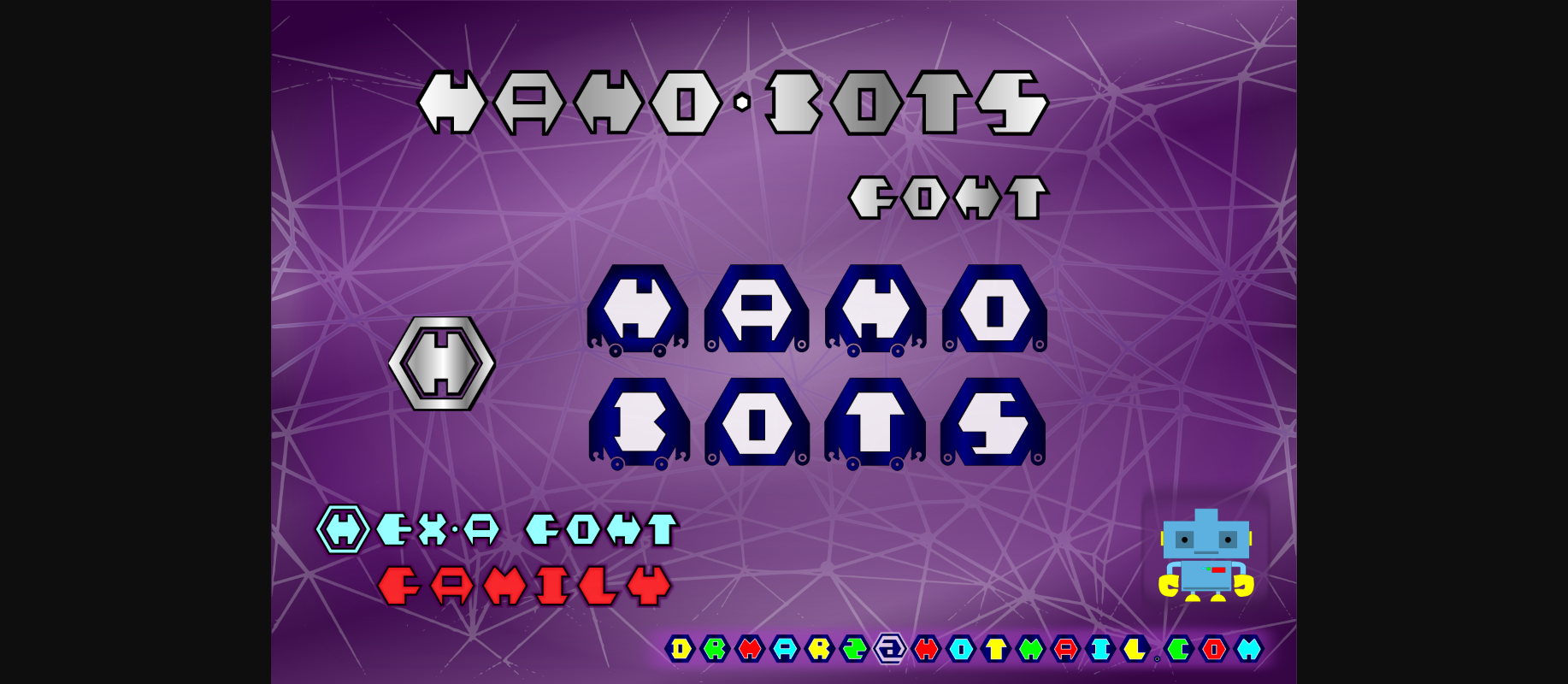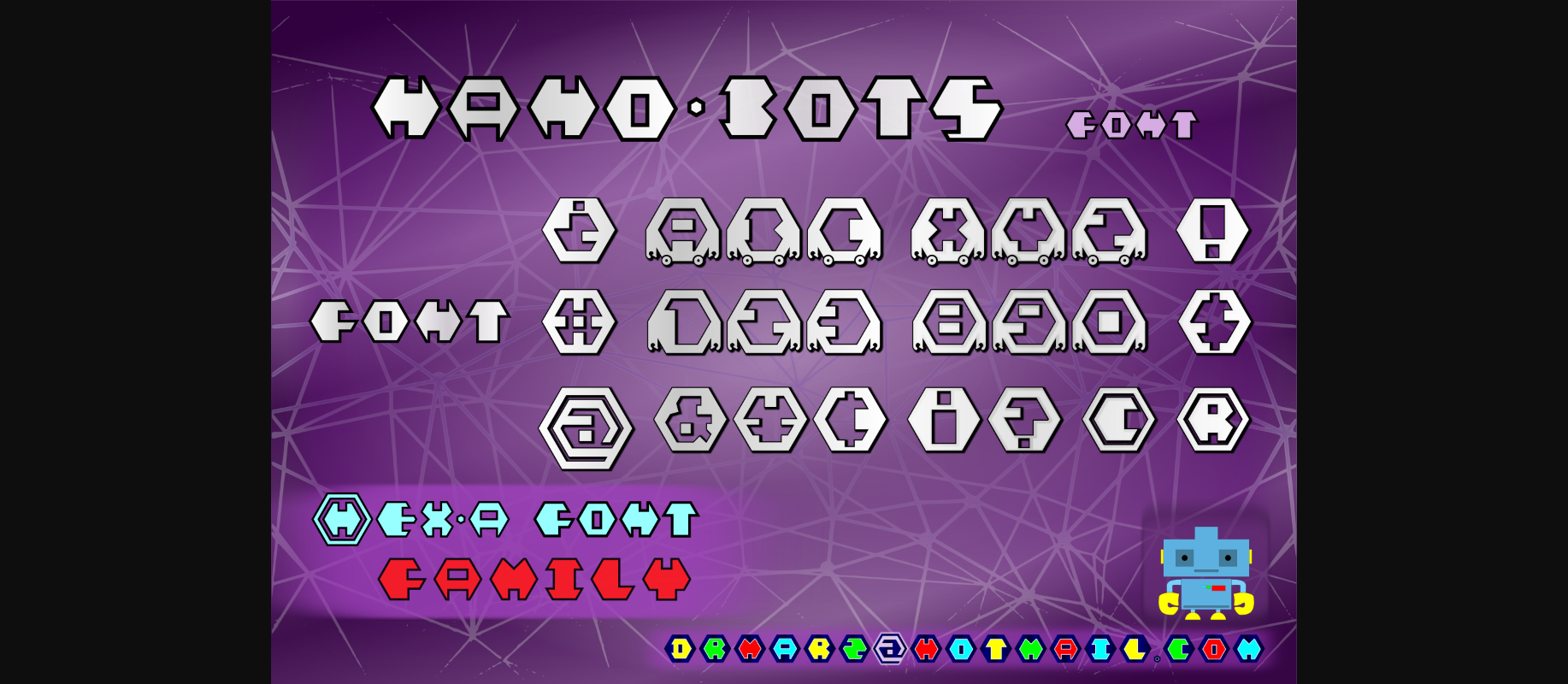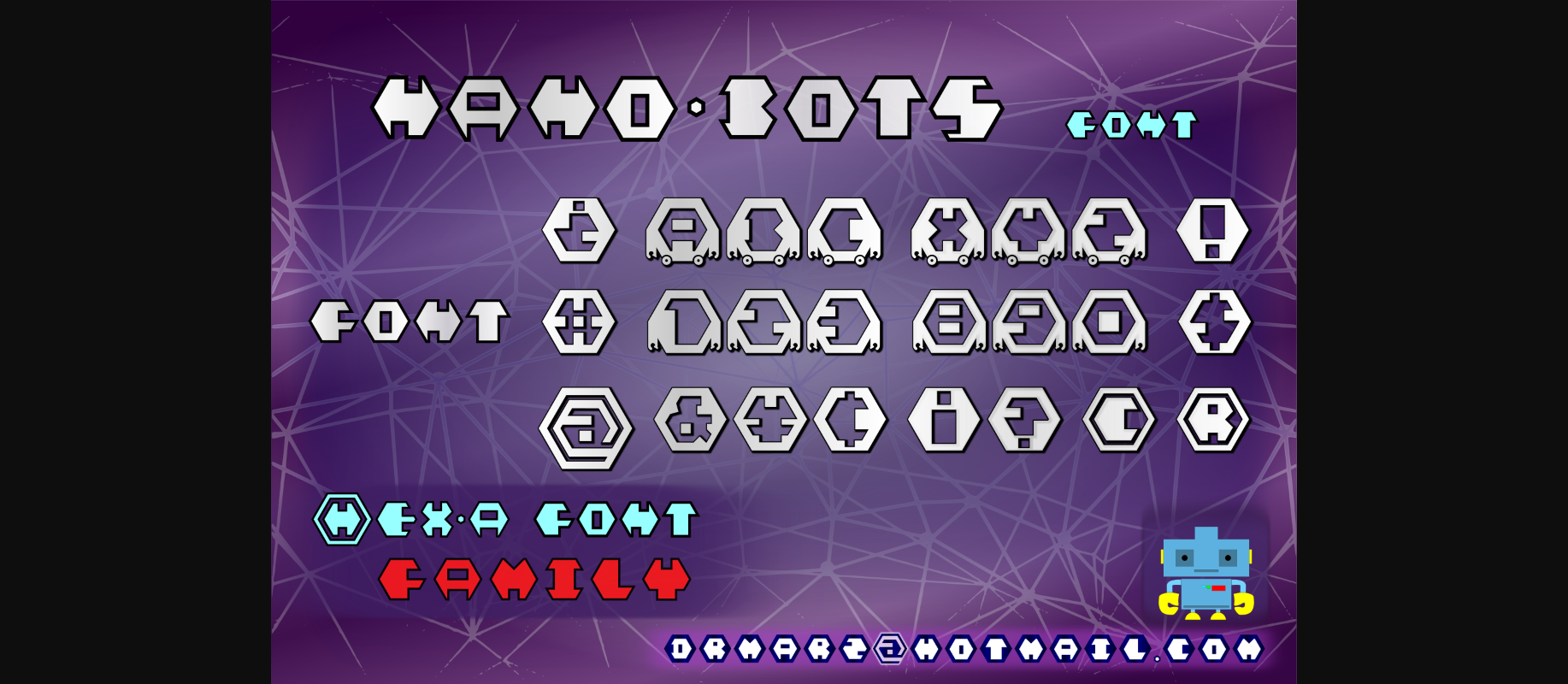
Nano Bots Font
About Nano Bots Font
Nano Bots is a unique and interesting decorative font. A little bit quirky, this font looks incredibly adept on a wide variety of contexts!